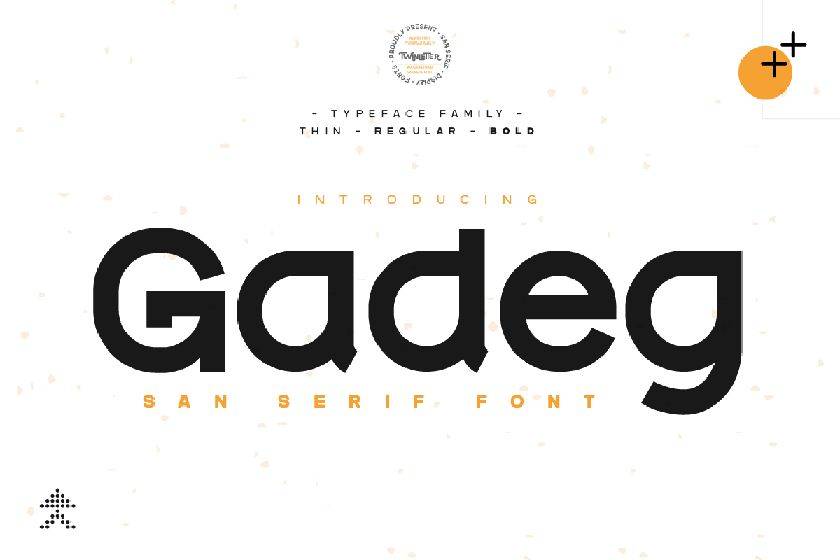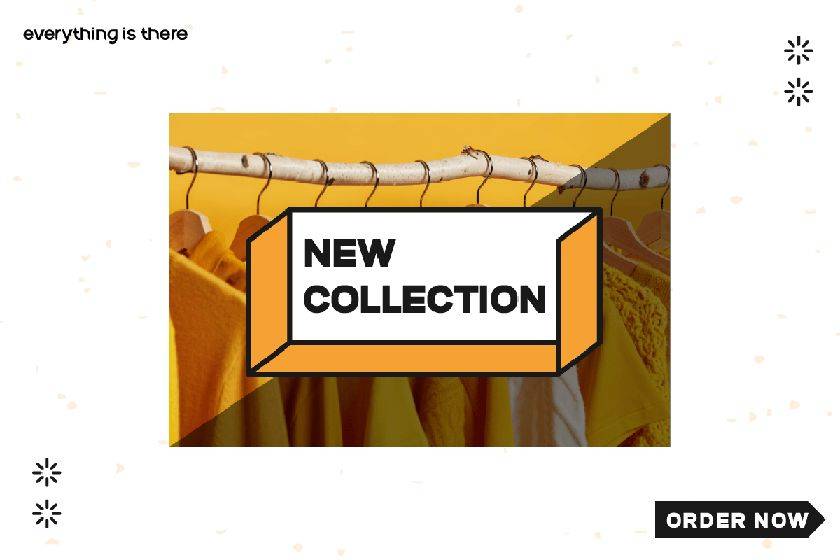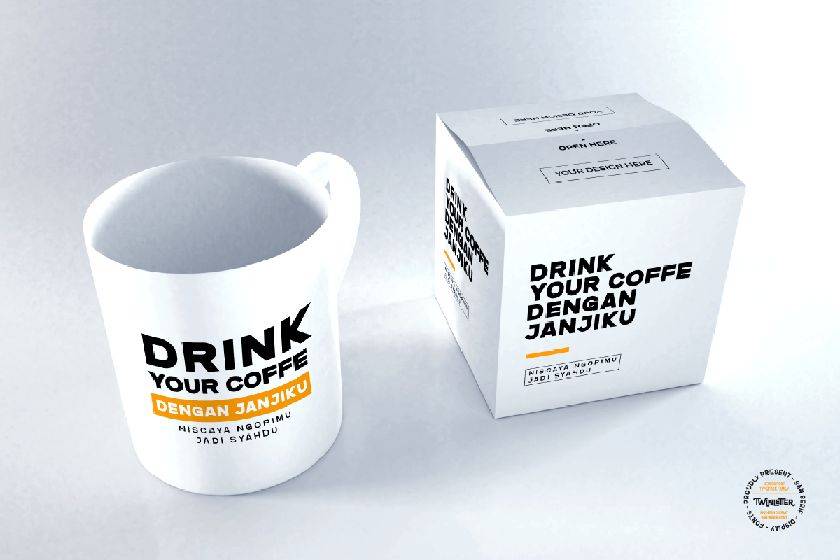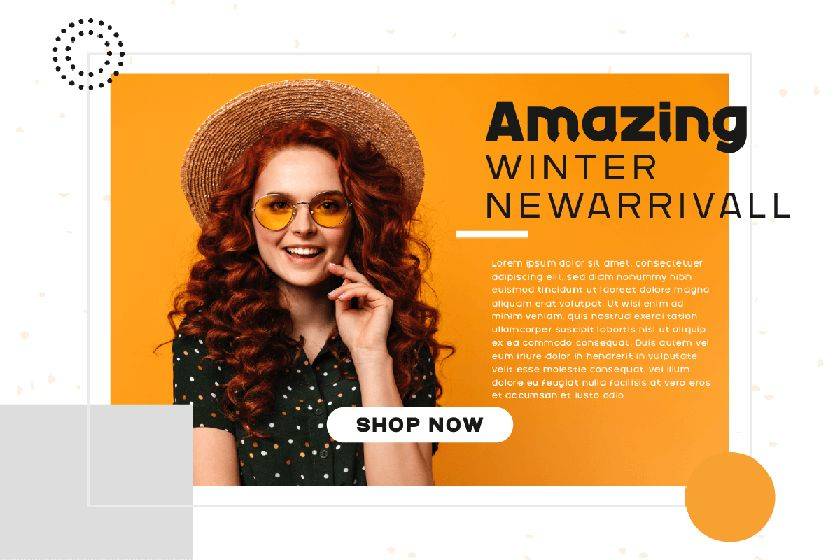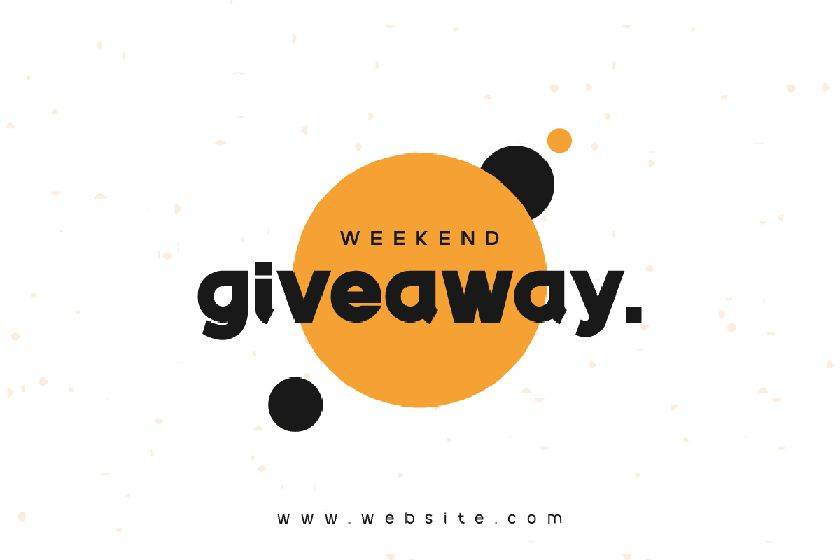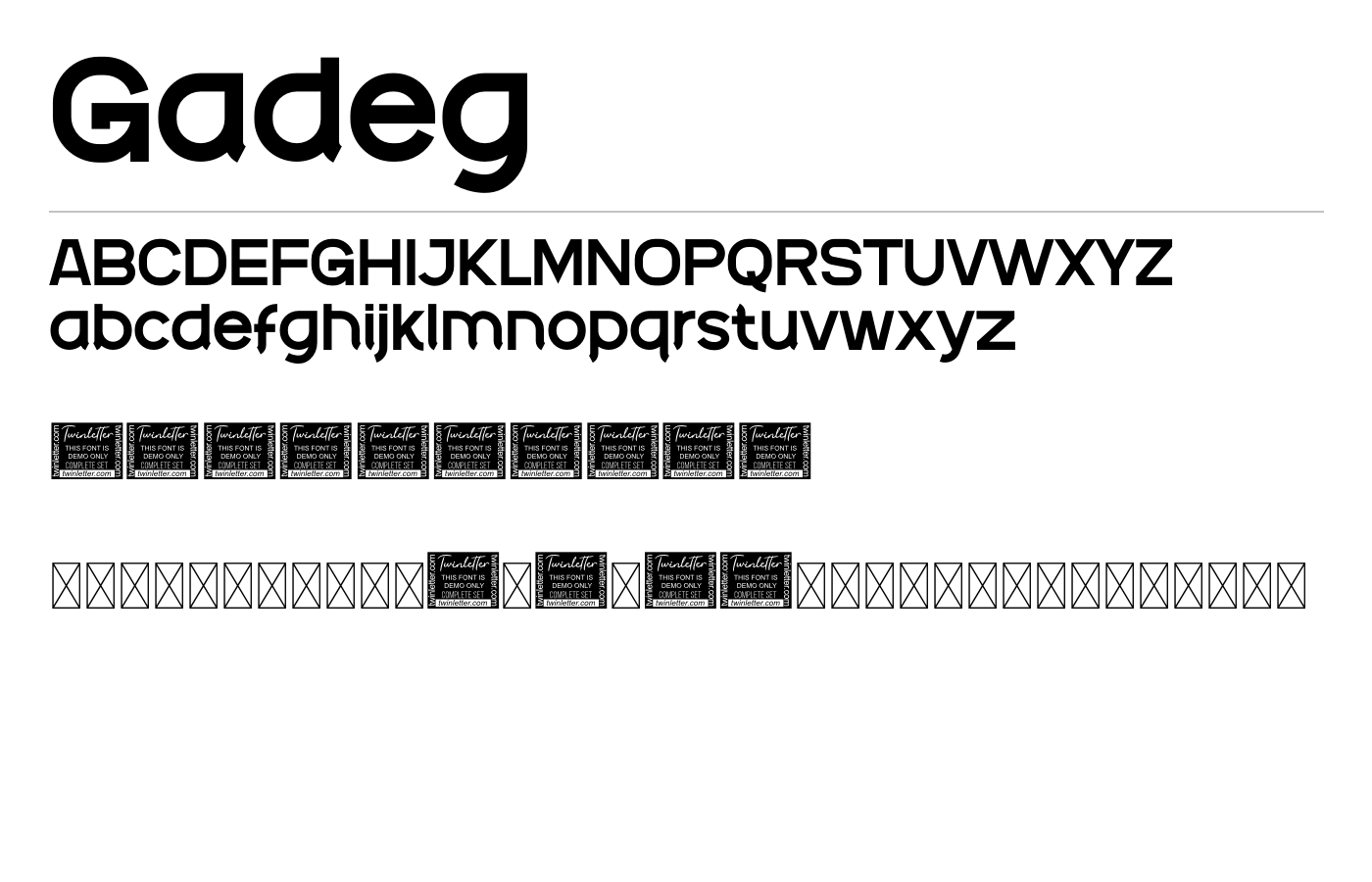
Gadeg is a modern sans serif font characterized by its clean, geometric shapes and balanced proportions, making it both legible and stylish. With a medium weight, a slightly condensed width, and unique letterforms such as single-story a and distinctive g, it exudes a contemporary and professional vibe ideal for branding, editorial design, and digital use. Its clarity and subtle personality make it perfect for headlines, logos, and websites seeking a fresh yet approachable look.
Gadeg Font
About Gadeg Font